Some of you may wonder, what is responsive typography? When you realize that you can comfortably read content from a website through your PC or tablet, that’s the magic work of responsive typography! The font size can automatically adjust on the gadget you’re using, making it easy for you to read online articles anywhere.
What is Responsive Typography?
The work of adjusting font sizes, spacing, and line heights in a website is what we call responsive typography. In turn, users can easily read the website’s contents without any need to scroll or zoom excessively, even when they open the website on gadgets other than their PCs.
Moreover, by maintaining responsive typography on your website, you’ll also be able to reduce bounce rates and make your website rank better in the search engine.
3 Techniques to Implement Responsive Typography
There are three fundamental techniques of typography in responsive web design, which help enhance the website’s visual appeal and readability. Those three elements are explained thoroughly below.
1. Use Relative Units for Font Sizing
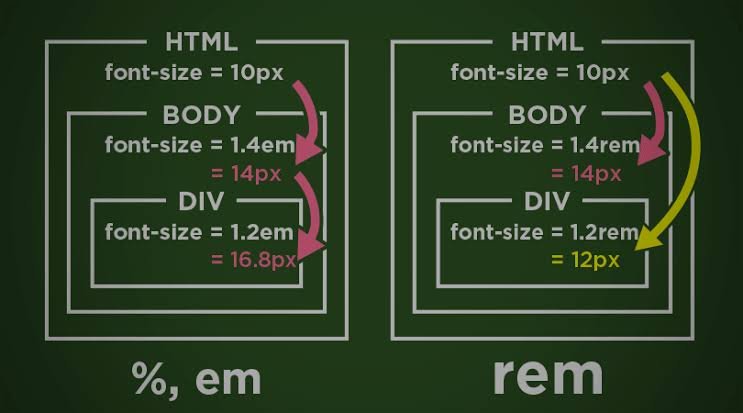
One of the fundamental principles of responsive web design is the use of relative units. These CSS measurement units help create flexible layouts that adapt to various screen sizes, devices, and user preferences.
While pixels (px) are commonly used, they are an absolute unit and do not scale dynamically. In contrast, relative units like em, rem, and percentages provide better adaptability, making them ideal for responsive typography.
The rem unit provides consistent scaling across a website. Since rem is based on the root element’s font size rather than its parent, it ensures uniform scaling across different sections.
For a fixed-width layout, em units allow text to scale proportionally to the font size of its parent element, maintaining consistency. Similarly, percentages adjust based on the parent element’s size, offering flexibility for both text sizing and layout, making them particularly effective for responsive typography on mobile devices.
2. Implement Fluid Typography
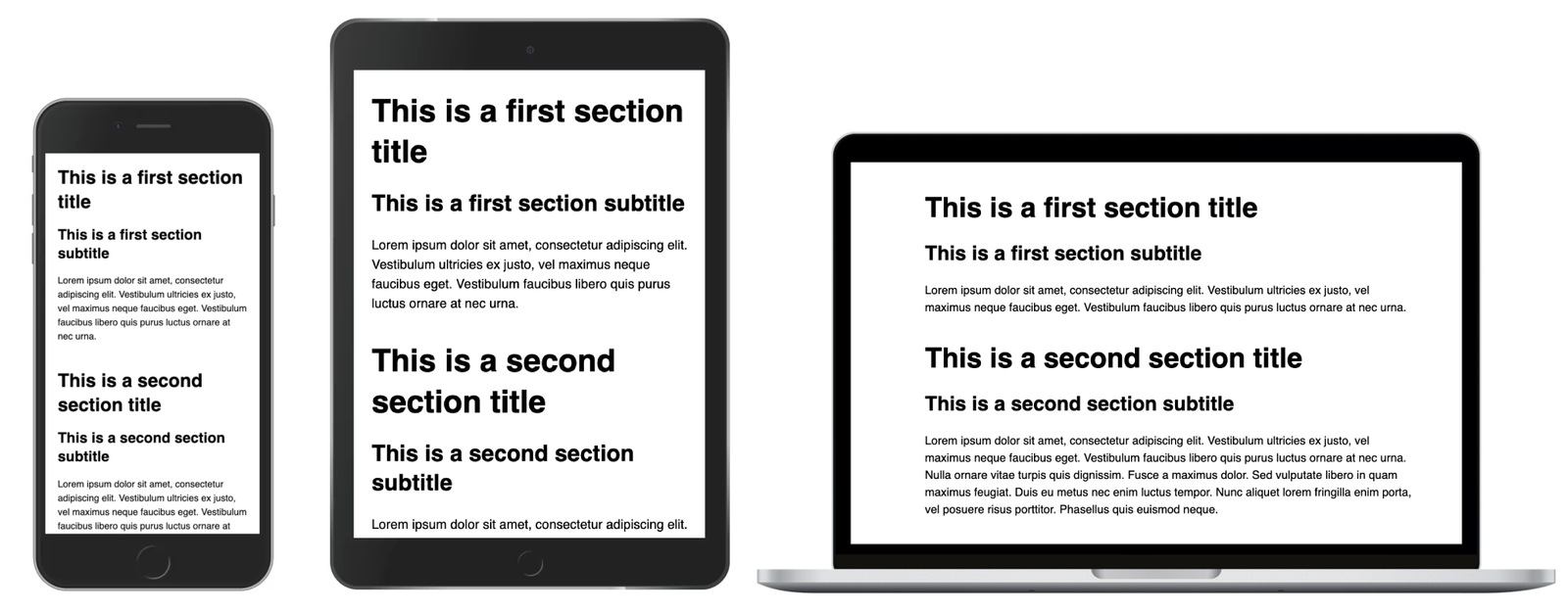
One of the responsive typography examples is fluid typography, a concept where the font size adjusts based on the device’s characteristics. With fluid typography, users can easily read your content, no matter what device they’re using.
Since the font size is automatically adjusted with fluid typography, you won’t have to update font sizes for each new device in the future. The user experience will also be enhanced significantly, as they won’t need to zoom out or in when reading your website’s contents.
3. Apply Media Queries
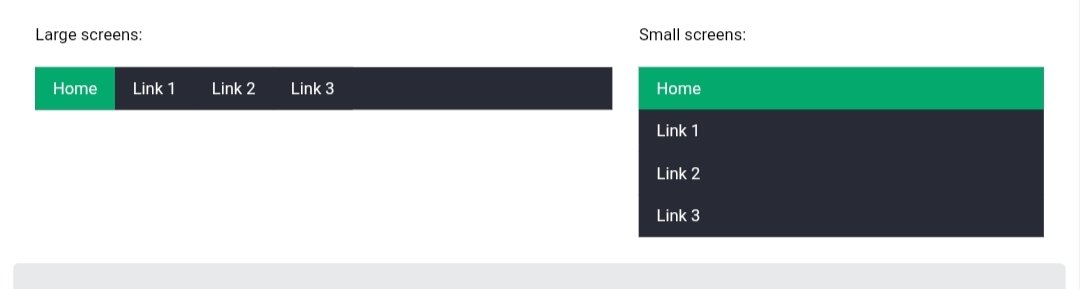
When learning about what responsive typography is, you should also be familiar with media queries. Media queries allow your website to adapt its appearance and layout to different devices and screen sizes, making your text readable and visually appealing across any device.
As shown in the picture above, media queries make the navigation menu adapt to different screen sizes to match users’ devices.
Using media queries for your website will adjust the font size based on the viewport width. When the viewport width increases, the font size will also be increased so the text remains clear on larger screens.
Core Principles of Responsive Typography
When you’re trying to implement responsive typography, ensure you have understood the core principles of it. You can also learn to achieve these principles by reading the explanations below.
1. Readability
There are four factors in maintaining readability for responsive typography.
- Pick fonts that remain clear and legible at various sizes. For instance, you can pick sans-serif fonts, which often work well for body text on various screens.
- Use a line height of 1.5 to 1.6 to ensure proper spacing between lines.
- Ensure you pick the proper background and text colors.
- Limit the number of characters per line. The optimal readability can be achieved by applying only 45-75 characters per line.
2. Scalability
You can work on these three points to achieve scalability, as explained below.
- Use the em or rem units for font sizes to scale the text proportionally with the screen size.
- Pick a specific font size for different screen widths with media queries to control typography at diverse device sizes.
- Use fluid typography to create a smooth transition between font sizes.
3. Consistency
The last principle of responsive typography is consistency. Below are ways to maintain consistency in order to enhance user experience.
- Use consistent heading styles and sizes across devices.
- Keep the relative size proportions between text elements (like body text, headings, and captions) consistent as they scale.